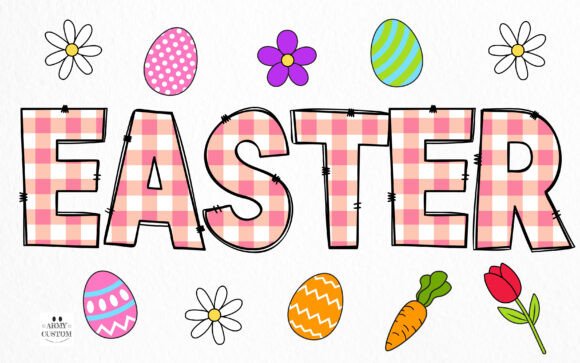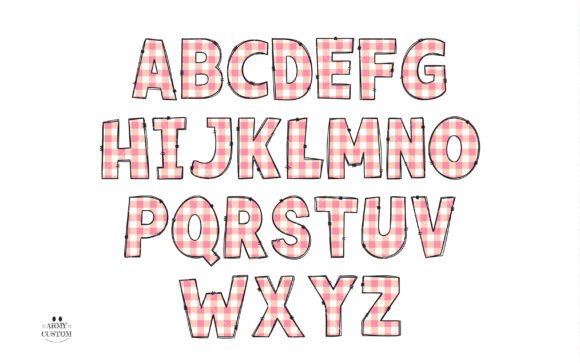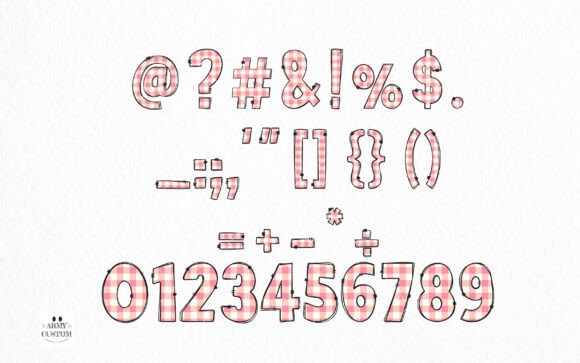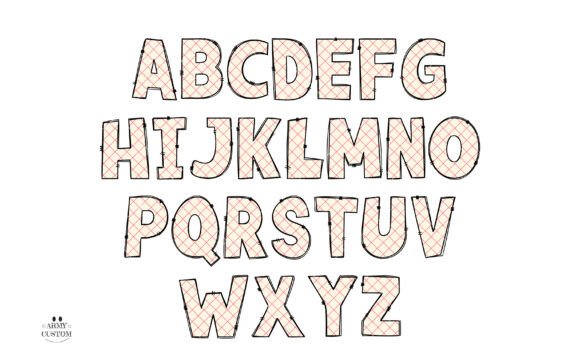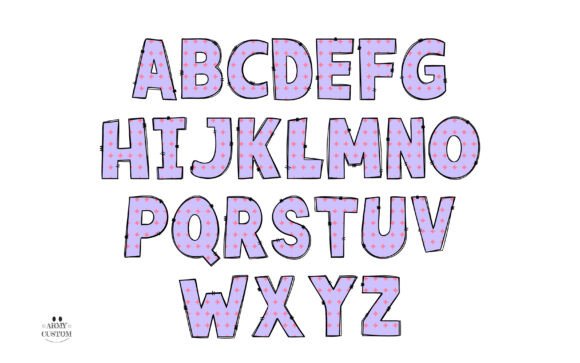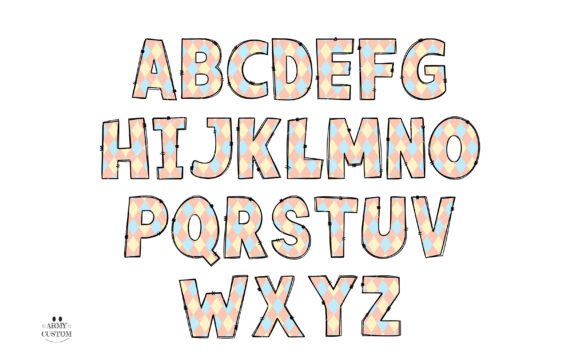
Easter Army Font: Bringing Joyful Exhilaration to Your Designs
As the season of renewal and celebration approaches, designers and crafters are on the lookout for creative tools that can help them infuse their projects with the vibrant spirit of Easter. If you’re searching for a font that embodies the rhythmic charm and joyful exhilaration of Spring, look no further than the Easter Army Font. This delightful font is specifically designed to bring a touch of Easter magic to your designs, making it an essential addition to your creative arsenal.
The Easter Army Font: A Symphony of Creativity
The Easter Army Font, particularly the “Easter Army No.2” version, is more than just a font – it’s an artistic tool that effortlessly transcribes your ideas into delightful visual narratives. With its lively and vibrant aesthetic, this font infuses your designs with the thrilling ecstasy of Easter in every stroke. Whether you’re working on Easter-themed projects, Spring-inspired designs, or simply looking to add a pop of joy to your creations, the Easter Army Font is the perfect choice.
Key Features of the Easter Army Font
• Rhythmic Charm: The Easter Army Font carries the rhythmic charm of Spring, reminiscent of Easter celebrations, making it ideal for seasonal designs.
• Joyful Exhilaration: This font embodies the joyful exhilaration of Easter, adding a lively and vibrant touch to your projects.
• Creative Possibilities: With the Easter Army Font, you can unlock a world of creative possibilities, from Easter-themed designs to Spring-inspired projects.
Why Designers and Crafters Love the Easter Army Font
The Easter Army Font has quickly become a favorite among designers and crafters due to its unique ability to capture the essence of Easter and Spring. Here are just a few reasons why:
• Versatility: This font can be used for a wide range of projects, from Easter-themed designs to Spring-inspired creations.
• High-Quality Design: The Easter Army Font is designed with high-quality and attention to detail, ensuring that your projects look professional and polished.
In conclusion, the Easter Army Font is a must-have for designers and crafters looking to add a touch of Easter magic to their projects. With its rhythmic charm, joyful exhilaration, and creative possibilities, this font is sure to become a staple in your design arsenal. Whether you’re working on Easter-themed designs or simply looking to add a pop of joy to your creations, the Easter Army Font is the perfect choice.